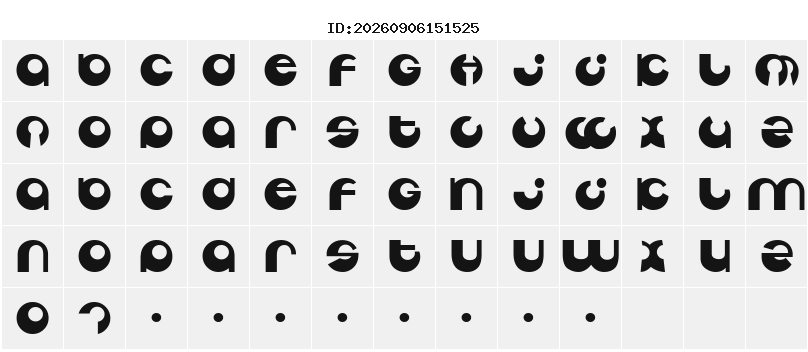
Tabun Preview
• Font Name: Tabun
• Full Font Name: Tabun
• PostScript Name: Tabun
About Tabun.ttf
Tabun.ttf is a modern, elegant sans-serif font designed for ultimate readability and visual harmony. Perfect for branding, headlines, web design, and print materials.